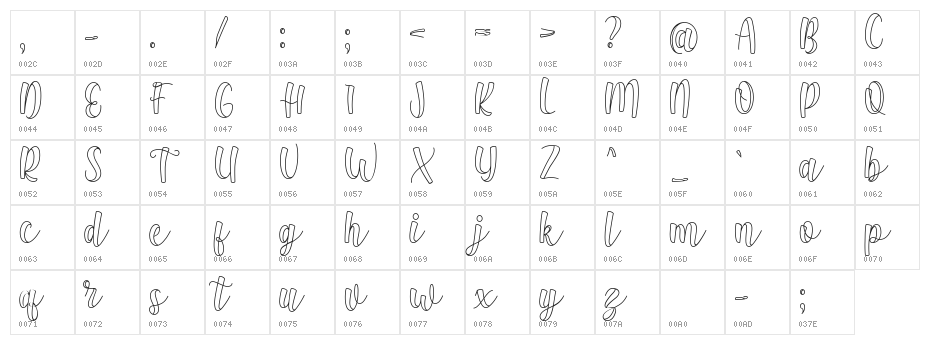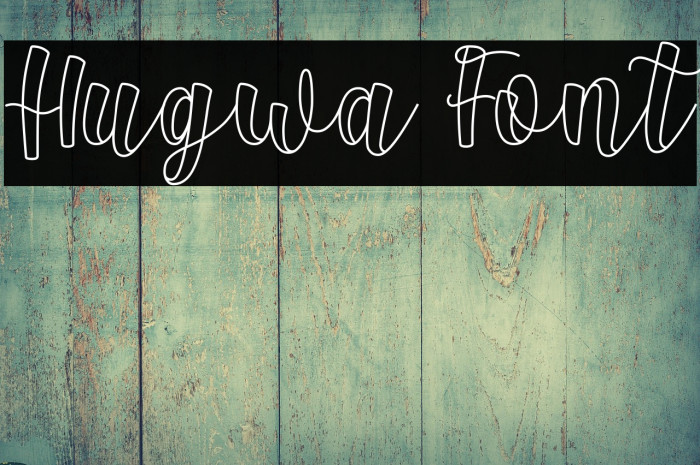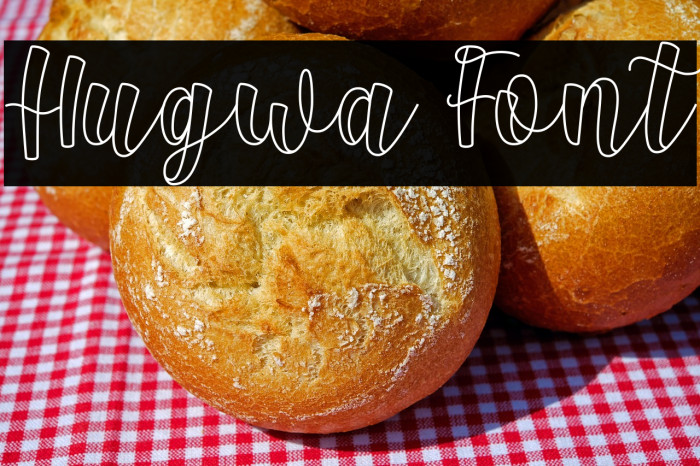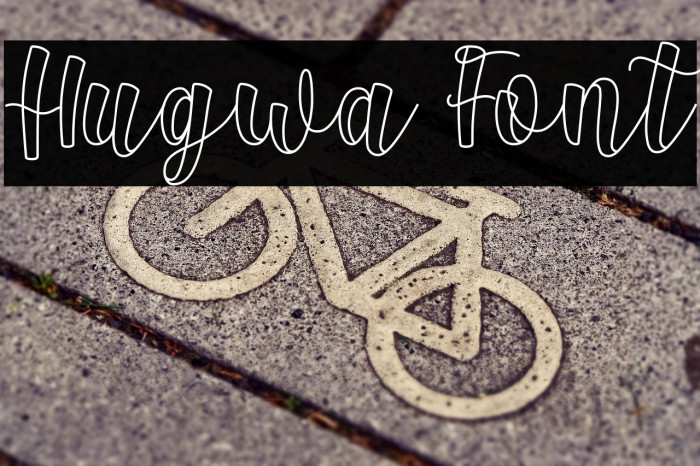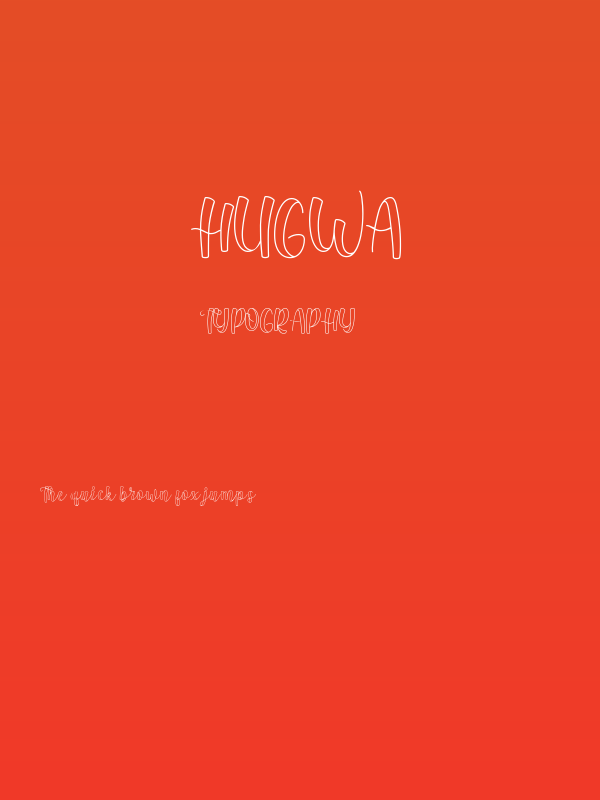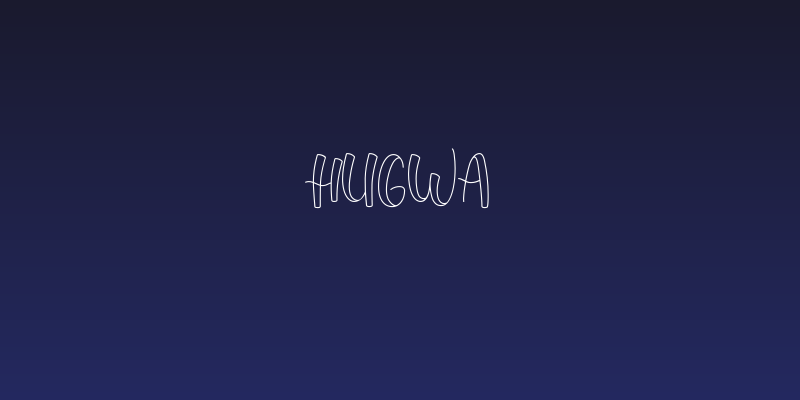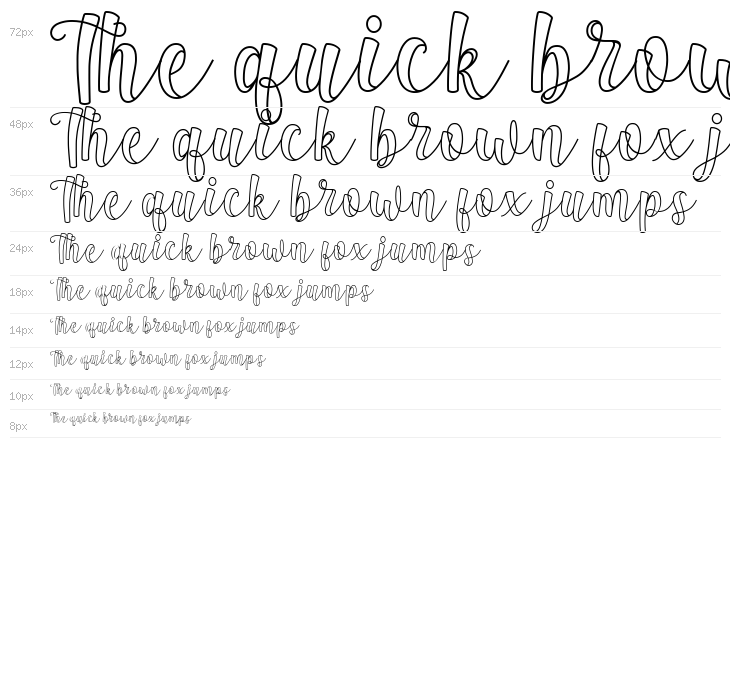
Hugwa Font
Hugwa Description
This font features a playful and elegant handwritten style with smooth, flowing lines and a consistent stroke width. The uppercase letters are tall and slightly narrow, giving a sense of height and sophistication. The lowercase letters maintain a friendly and approachable feel, with gentle curves and loops that enhance its handwritten charm. The overall design is clean and legible, making it suitable for a variety of applications. The font's unique character is further emphasized by its distinctive letterforms, which add a touch of personality and flair to any text.
| Use Case | Headlines, Logos, Invitations |
| Proposed Projects | Ideal for greeting cards, invitations, branding, and social media graphics. |